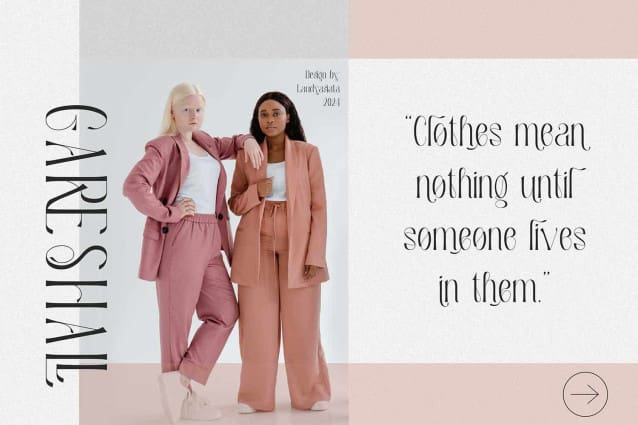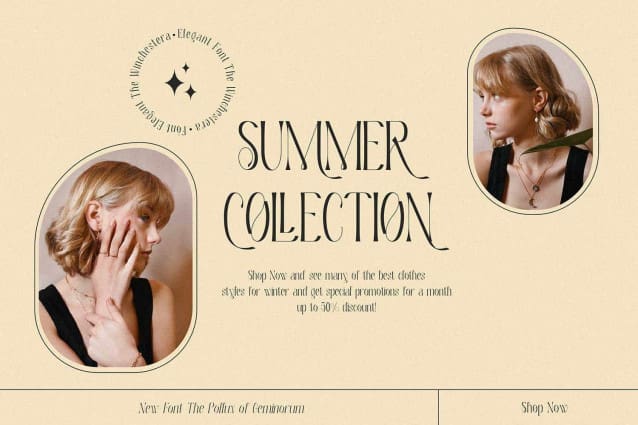
The Winchestera Font
The Winchestera Font is an elegant and stylish serif font. Fall for its ravishing style and use it to create gorgeous wedding invitations, beautiful stationary art, eye-catching social media posts, and much more!